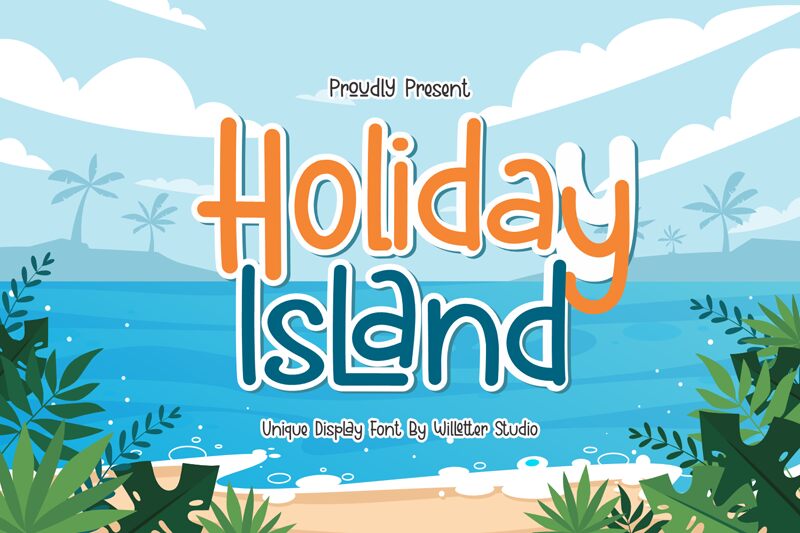
Holiday Island
Holiday Island font by Willetter Studio is a cartoon display font that adds adventure and exploration to your typography projects. It brings together a relaxed, friendly, and approachable character which is further highlighted by its clean hand-drawn aesthetics. The letters of this typeface feature curved strokes with rounded edges with some including minor vertical distortion.
Advertise an upcoming holiday sale, design an eye-catching flyer for the latest exhibit in town or create fun packaging designs with this free display font. Other comfortable use cases include branding and logo features, apparel print designs, posters, social media posts, book covers on vacation destinations, video game designs and ad campaigns.